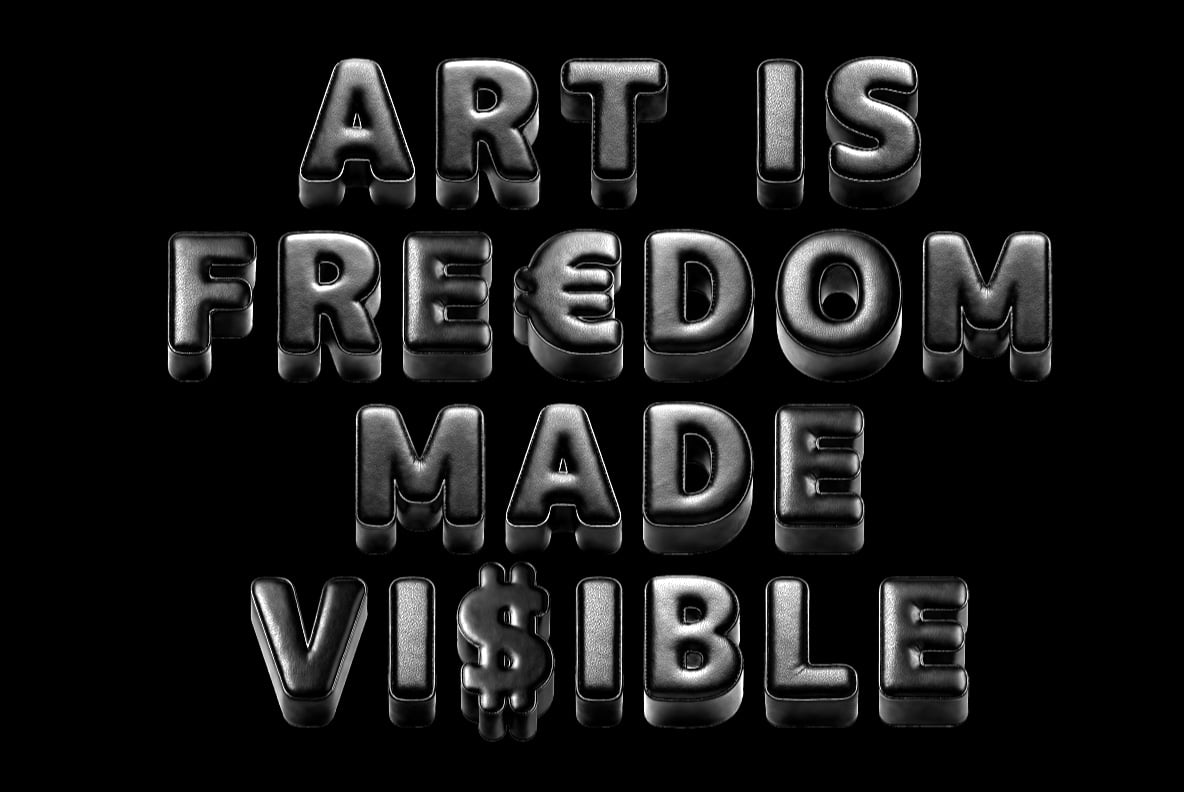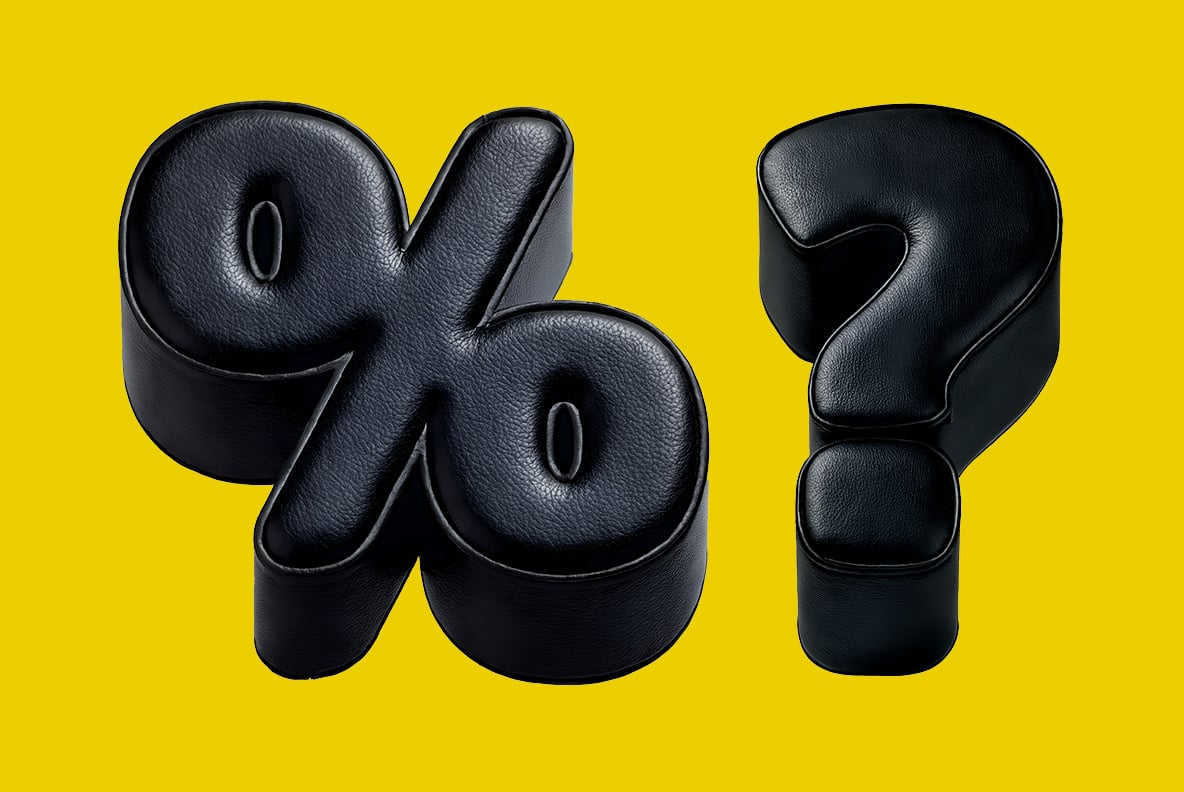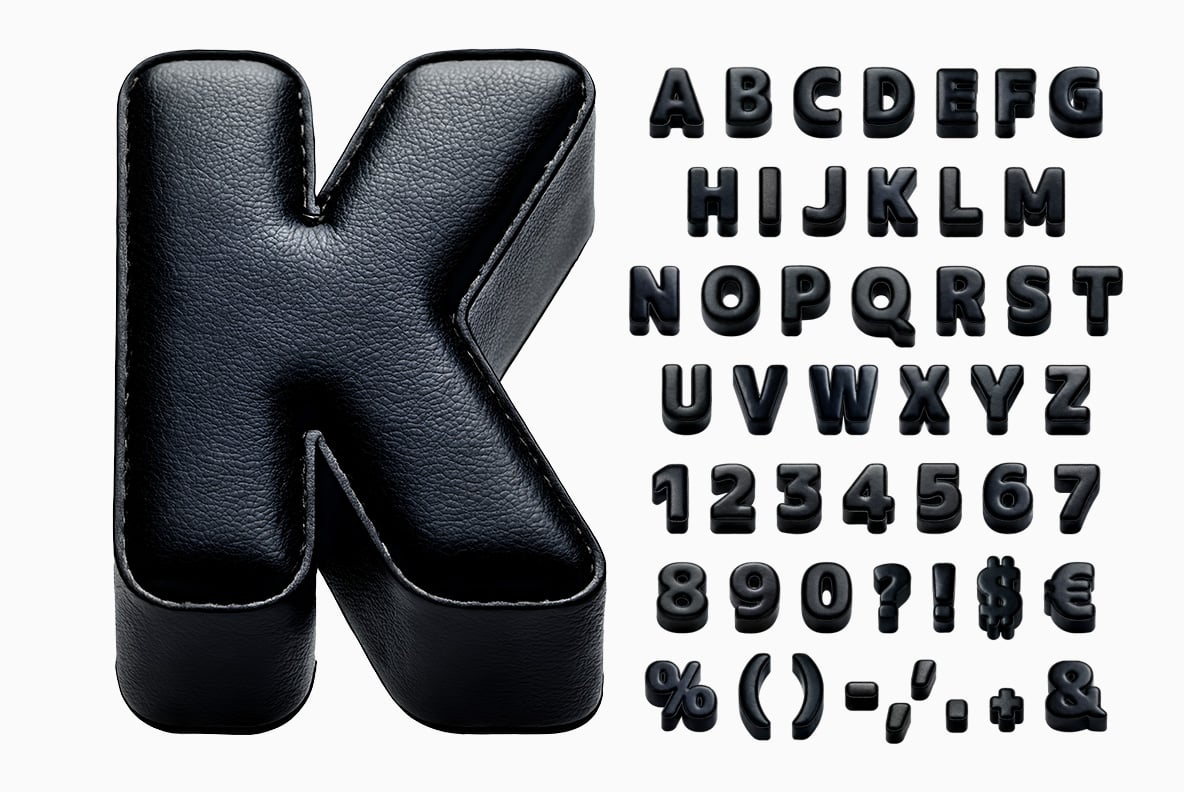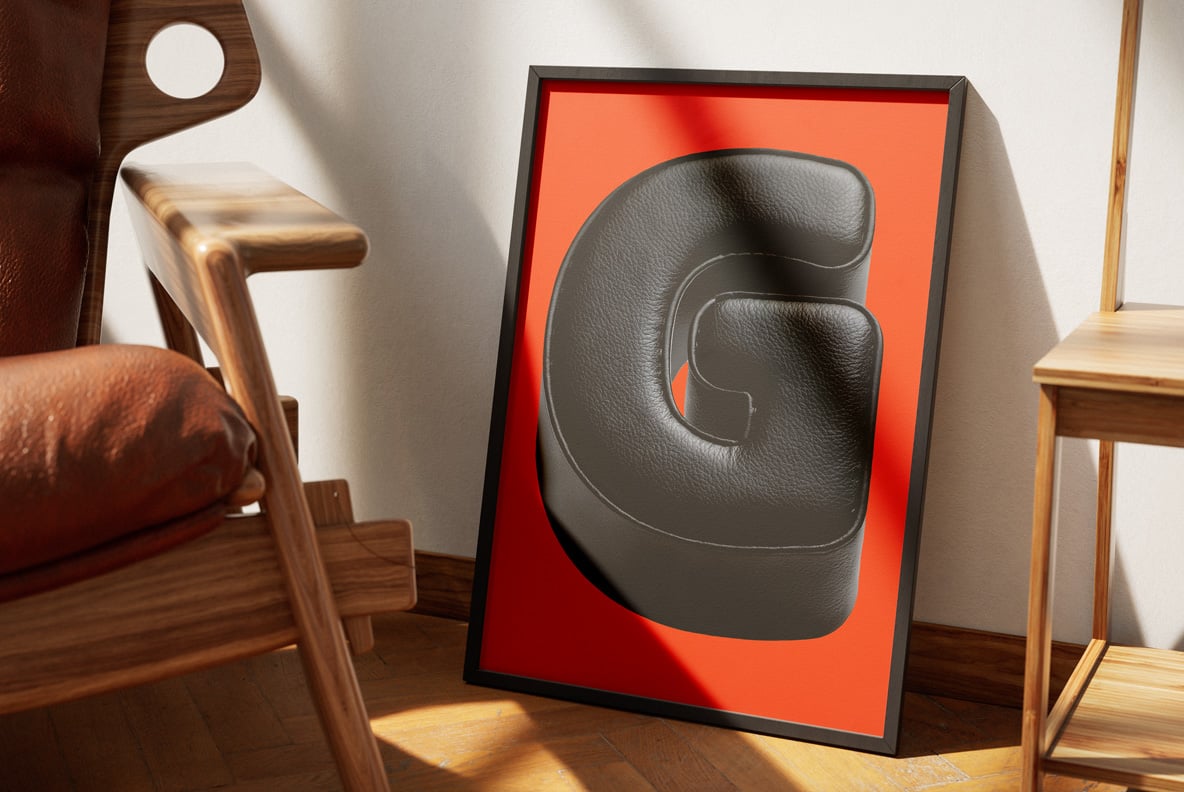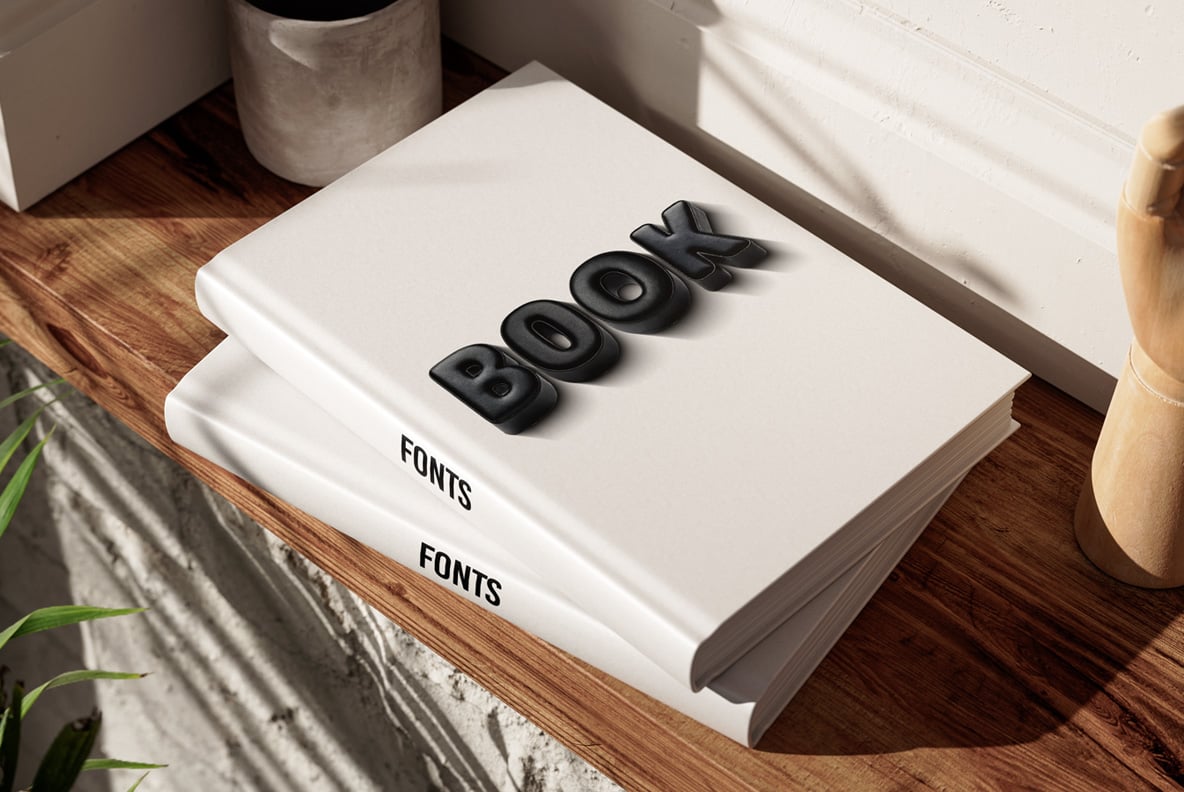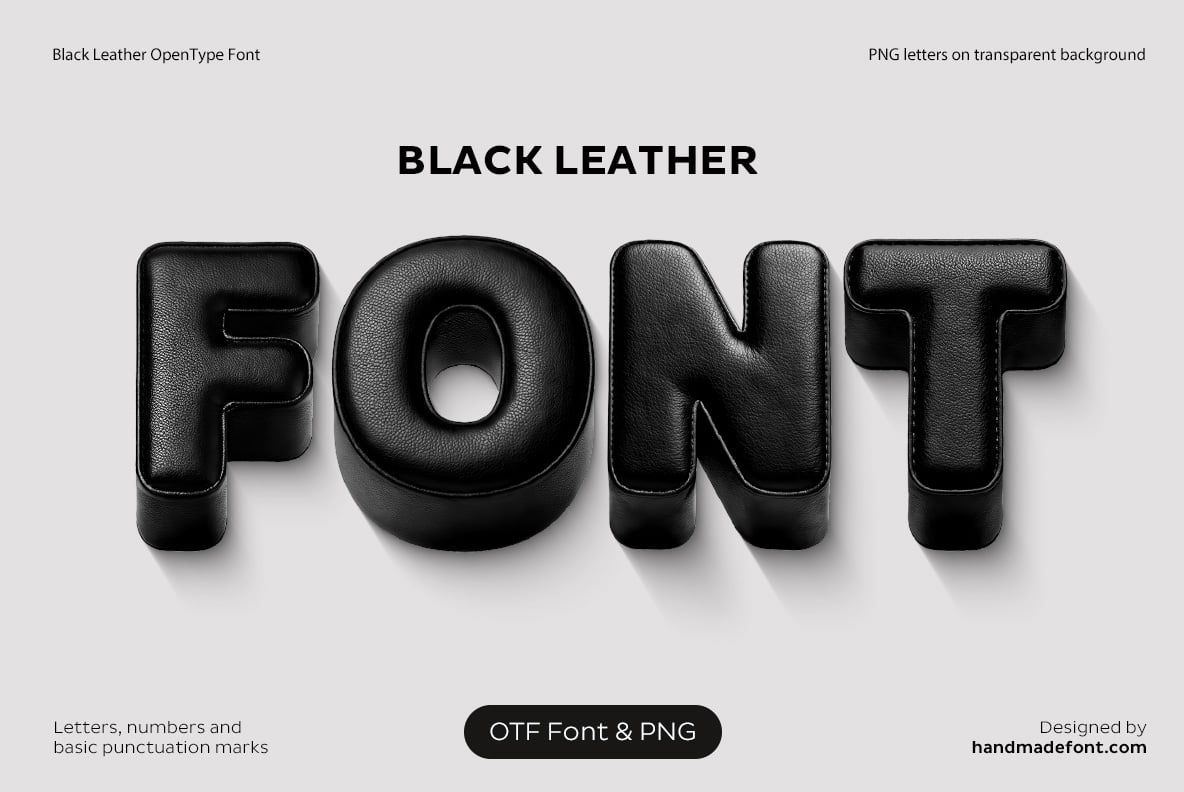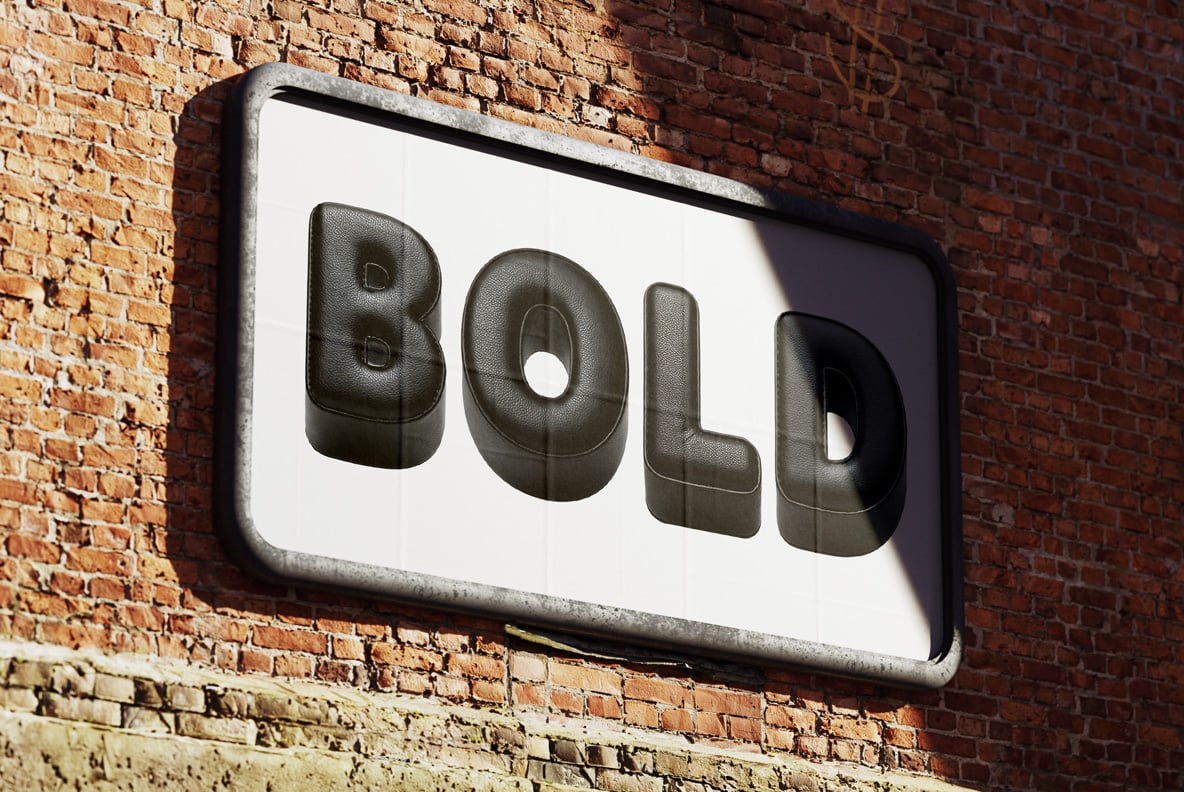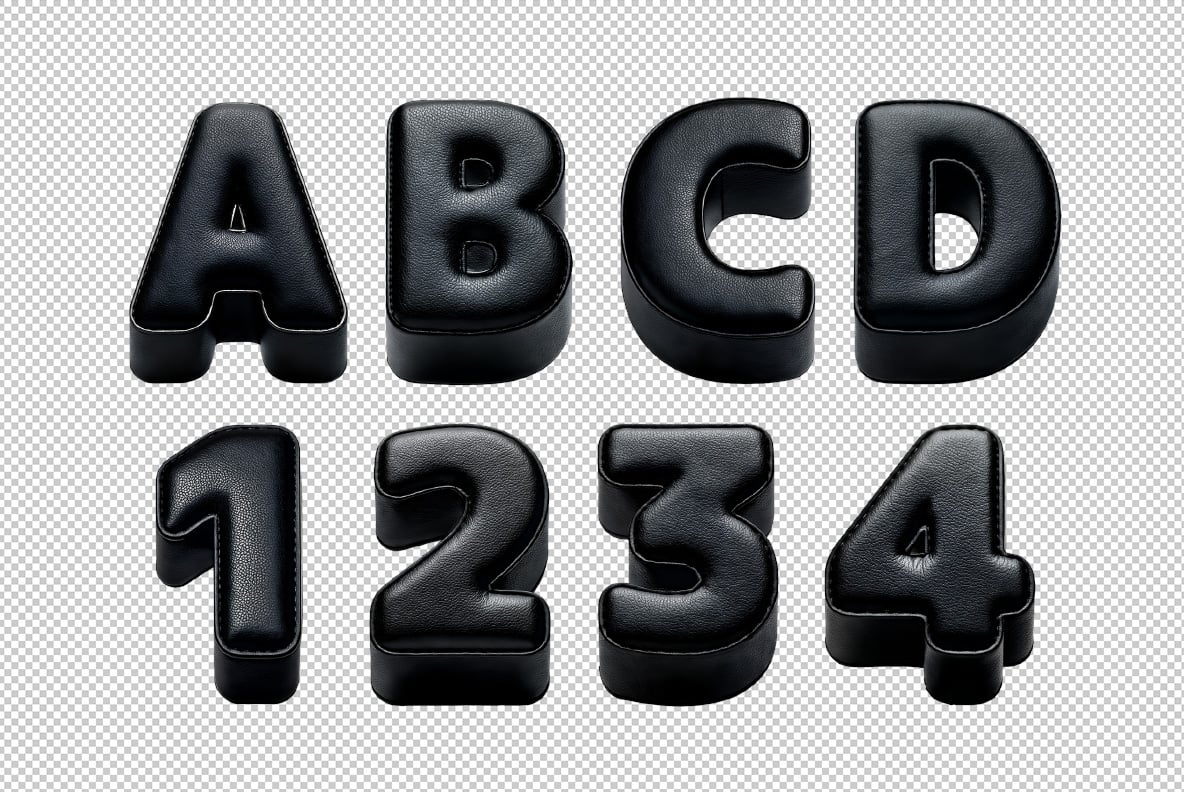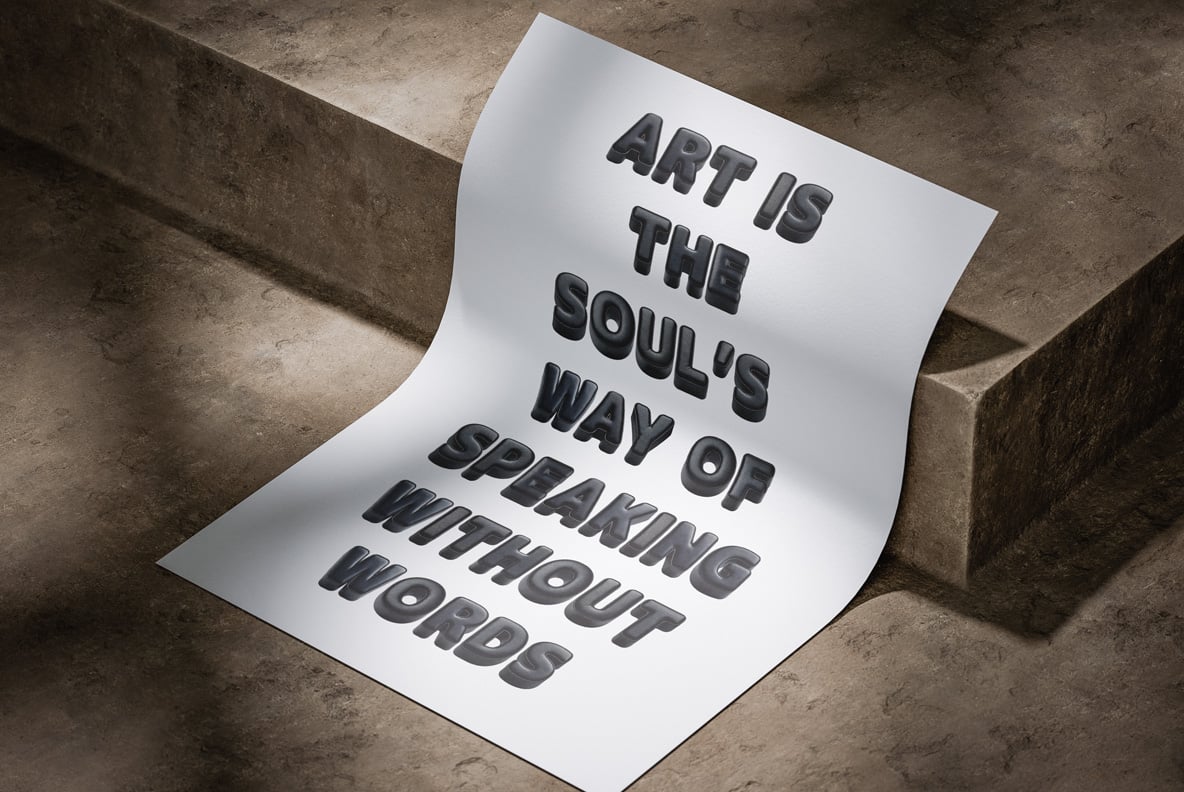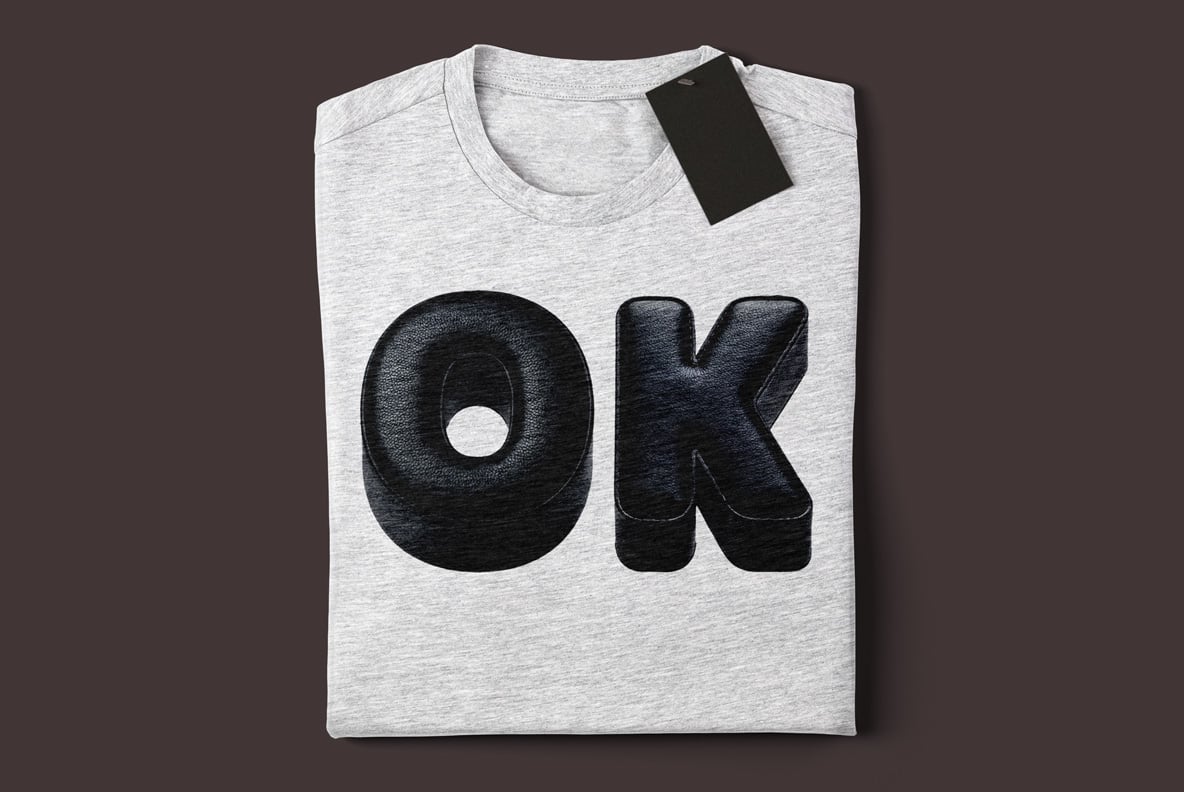
Black Leather Font
Black Leather Font exudes sophistication and boldness, bringing the timeless allure of black leather to typography. Each letter in this unique alphabet is crafted with intricate leather textures, combining elegance and edge in every curve and detail. Perfect for designs that demand a luxurious yet powerful statement, this font transforms standard text into eye-catching works of art. Whether you're creating for fashion, branding, posters, or editorial layouts, the rich texture and depth of black leather letters will elevate your project. From A to Z, every character carries the essence of leather’s tactile beauty, making this typography ideal for bold headlines, logos, and creative visuals. Black Leather Font is where style meets substance, embodying the ultimate in leather typography.
A high definition OpenType Font. Contains uppercase characters, numerals and basic punctuation. (Draw height roughly 800 pixels). All letters and glyphs that comprises this font you can see on the preview.
Others : ! ? - . ' $ € % & #